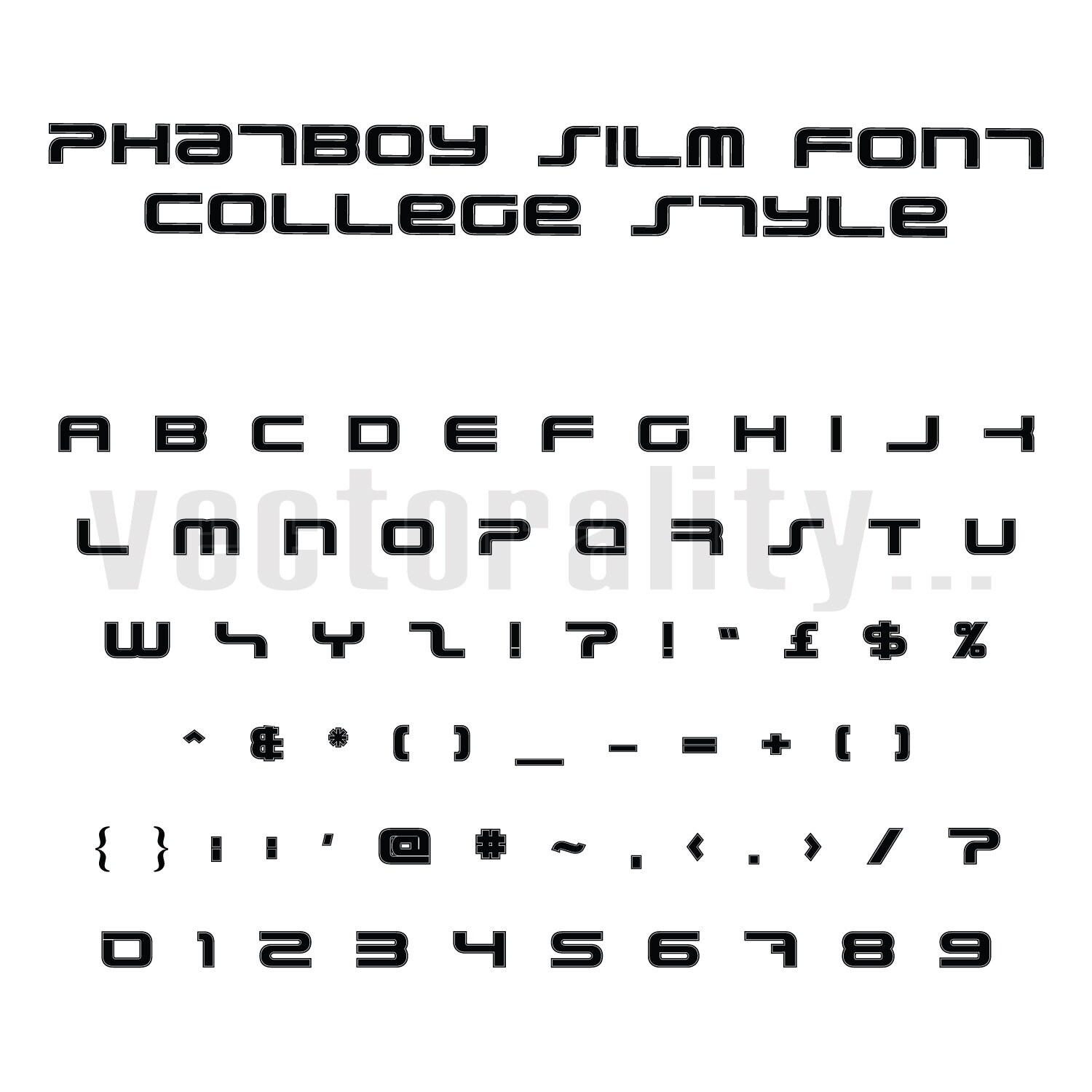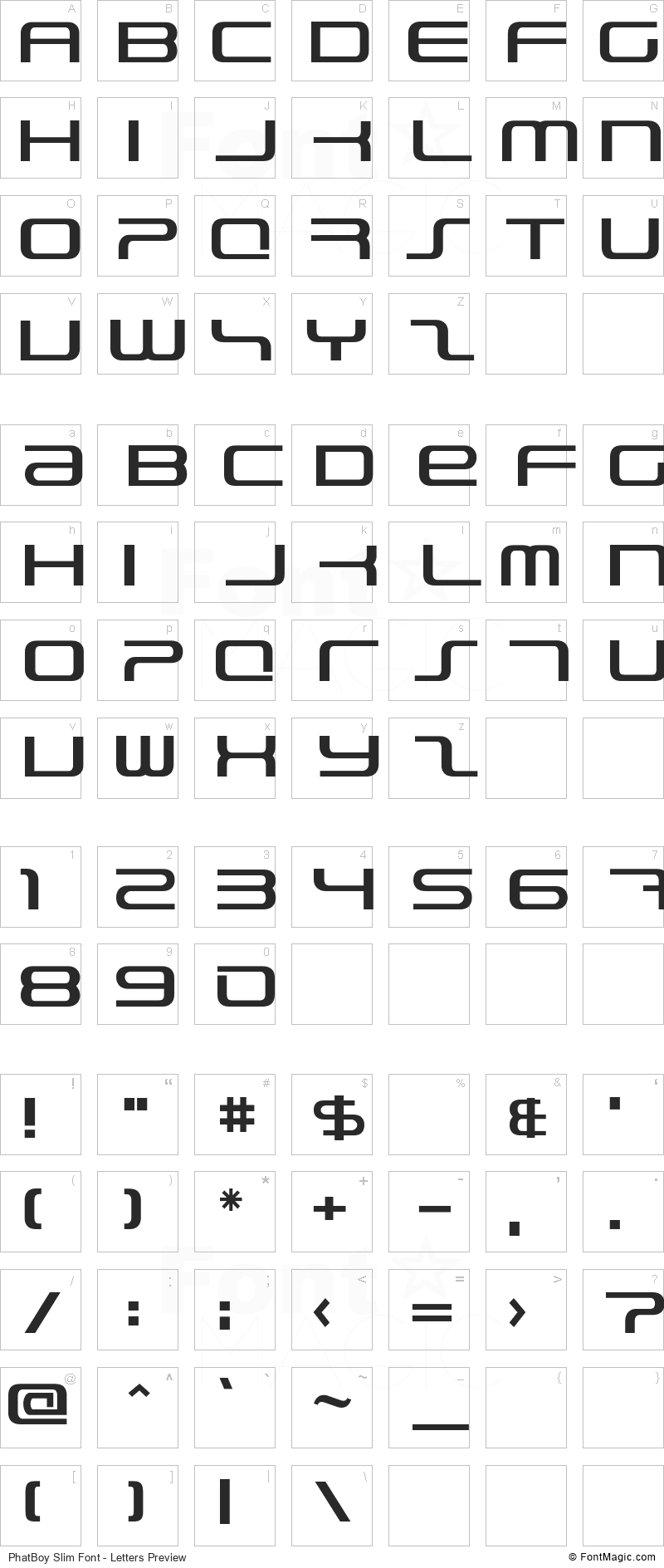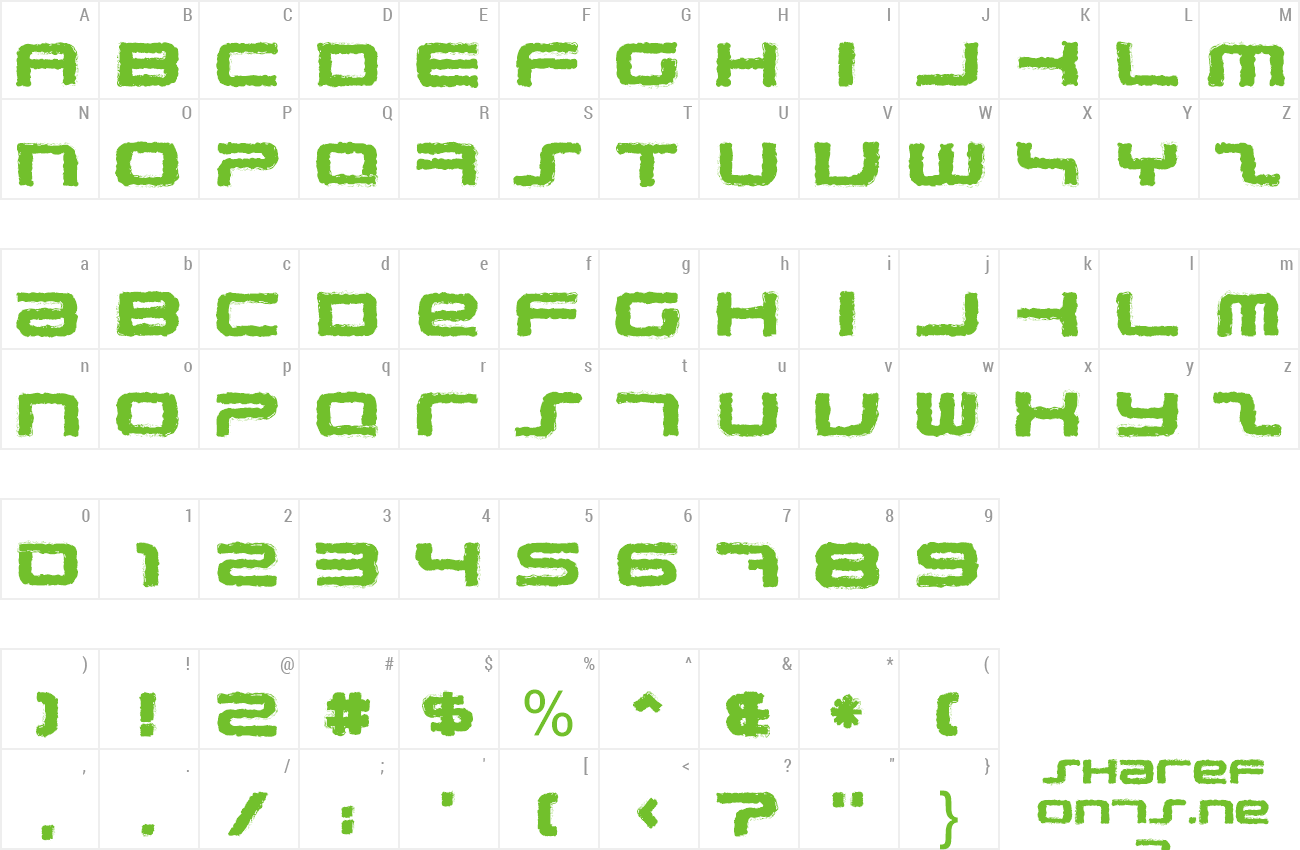
Phatboy Slim Font
Phatboy Slim Font - Phatboy slim college.otf phatboy slim rough.otf. Phatboy slim.otf phatboy slim italic.otf phatboy slim bold.otf phatboy slim bolditalic.otf. Web phat boy slim is a free font for personal use created by tracertong fontworks. Phat boy slim is a techno type font that can be.
Web phat boy slim is a free font for personal use created by tracertong fontworks. Phatboy slim.otf phatboy slim italic.otf phatboy slim bold.otf phatboy slim bolditalic.otf. Phatboy slim college.otf phatboy slim rough.otf. Phat boy slim is a techno type font that can be.
Phatboy slim college.otf phatboy slim rough.otf. Phat boy slim is a techno type font that can be. Web phat boy slim is a free font for personal use created by tracertong fontworks. Phatboy slim.otf phatboy slim italic.otf phatboy slim bold.otf phatboy slim bolditalic.otf.
Phat boy slim is a techno type font that can be. Phatboy slim college.otf phatboy slim rough.otf. Web phat boy slim is a free font for personal use created by tracertong fontworks. Phatboy slim.otf phatboy slim italic.otf phatboy slim bold.otf phatboy slim bolditalic.otf.
Phatboy slim.otf phatboy slim italic.otf phatboy slim bold.otf phatboy slim bolditalic.otf. Phatboy slim college.otf phatboy slim rough.otf. Phat boy slim is a techno type font that can be. Web phat boy slim is a free font for personal use created by tracertong fontworks.
Phat boy slim is a techno type font that can be. Phatboy slim.otf phatboy slim italic.otf phatboy slim bold.otf phatboy slim bolditalic.otf. Web phat boy slim is a free font for personal use created by tracertong fontworks. Phatboy slim college.otf phatboy slim rough.otf.
PhatBoy Slim Italic Font
Phatboy slim college.otf phatboy slim rough.otf. Web phat boy slim is a free font for personal use created by tracertong fontworks. Phat boy slim is a techno type font that can be. Phatboy slim.otf phatboy slim italic.otf phatboy slim bold.otf phatboy slim bolditalic.otf.
Phatboy slim college.otf phatboy slim rough.otf. Phatboy slim.otf phatboy slim italic.otf phatboy slim bold.otf phatboy slim bolditalic.otf. Web phat boy slim is a free font for personal use created by tracertong fontworks. Phat boy slim is a techno type font that can be.
Phatboy slim college.otf phatboy slim rough.otf. Phatboy slim.otf phatboy slim italic.otf phatboy slim bold.otf phatboy slim bolditalic.otf. Phat boy slim is a techno type font that can be. Web phat boy slim is a free font for personal use created by tracertong fontworks.
Free font "PhatBoy Slim Rough" by TracerTong
Web phat boy slim is a free font for personal use created by tracertong fontworks. Phatboy slim college.otf phatboy slim rough.otf. Phatboy slim.otf phatboy slim italic.otf phatboy slim bold.otf phatboy slim bolditalic.otf. Phat boy slim is a techno type font that can be.
Phatboy slim.otf phatboy slim italic.otf phatboy slim bold.otf phatboy slim bolditalic.otf. Web phat boy slim is a free font for personal use created by tracertong fontworks. Phat boy slim is a techno type font that can be. Phatboy slim college.otf phatboy slim rough.otf.
Phat boy slim is a techno type font that can be. Phatboy slim.otf phatboy slim italic.otf phatboy slim bold.otf phatboy slim bolditalic.otf. Phatboy slim college.otf phatboy slim rough.otf. Web phat boy slim is a free font for personal use created by tracertong fontworks.
PhatBoy Slim Rough Font Download
Phat boy slim is a techno type font that can be. Phatboy slim.otf phatboy slim italic.otf phatboy slim bold.otf phatboy slim bolditalic.otf. Phatboy slim college.otf phatboy slim rough.otf. Web phat boy slim is a free font for personal use created by tracertong fontworks.
Web Phat Boy Slim Is A Free Font For Personal Use Created By Tracertong Fontworks.
Phatboy slim.otf phatboy slim italic.otf phatboy slim bold.otf phatboy slim bolditalic.otf. Phatboy slim college.otf phatboy slim rough.otf. Phat boy slim is a techno type font that can be.